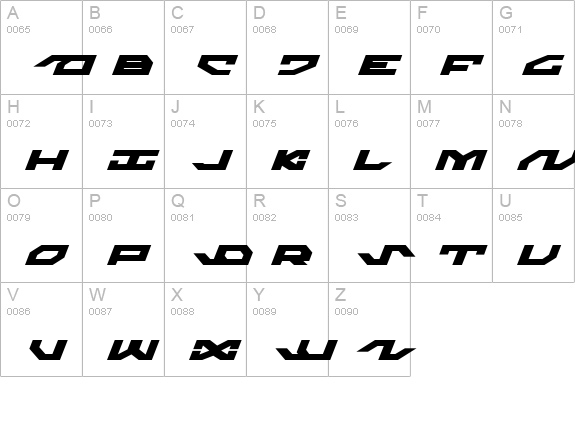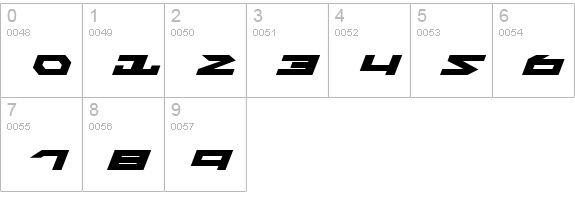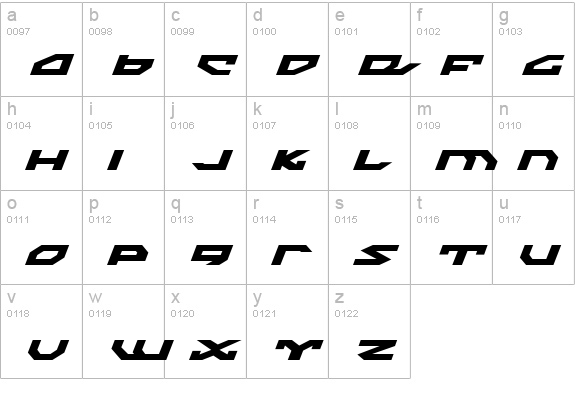
Nightrunner Expanded Italic is a distinctive, extended-width, italic variant in the Nightrunner typeface family \xE2\x80\x94 well suited to design and typography projects.
Nightrunner Expanded Italic font is a sleek and stylish typeface that exudes a sense of sophistication and modernity. With its elongated and slanted letterforms, this font is perfect for adding a touch of elegance to any design project. Whether you're creating posters, logos, or branding materials, Nightrunner Expanded Italic will make your text stand out with its unique and eye-catching appearance. The best part? Nightrunner Expanded Italic font is completely free to download at FontsMarket.com! This means you can add this versatile font to your collection without any cost, making it an excellent choice for both personal and commercial use. Don't miss out on this opportunity to elevate your designs with the stunning Nightrunner Expanded Italic font, available for free download now.